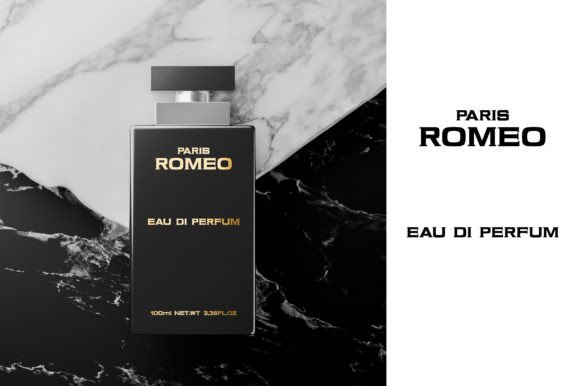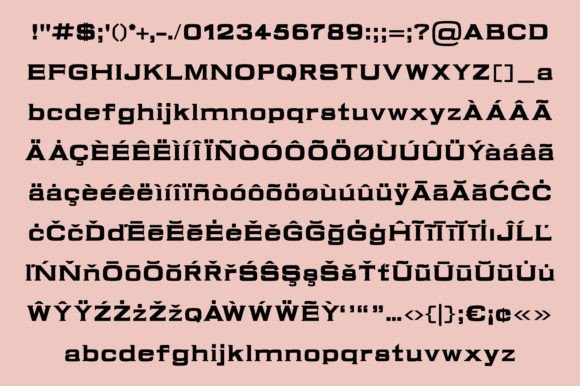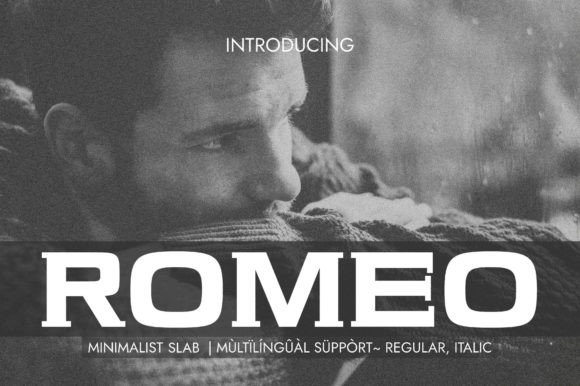
Romeo
Romeo: A Bold and Minimalist Slab Serif Font
Romeo is a bold yet minimalist slab serif typeface. This incredibly versatile font adapts well to a wide range of creative projects.
Key Features of Romeo
• Bold Design: Offers strong, impactful letterforms.
• Minimalist Style: Features clean, simplified elements.
• Versatile Character: Adapts well to various applications.
• Balanced Appeal: Combines boldness with simplicity.
Best Uses for Romeo
Thanks to its versatile characteristics, Romeo works especially well for:
When using Romeo in your designs, keep these tips in mind:
• Try it for headlines or display text to showcase its bold minimalism.
• Use different sizes to highlight its versatile features.
• Let its clean style enhance modern layouts.
• Take advantage of its adaptability across projects.
To sum up, Romeo is an excellent choice for designers seeking a bold yet minimalist slab serif font. Its versatility makes it perfect for various creative projects. Whether you’re creating modern branding, designing editorial content, or developing marketing materials, Romeo offers the perfect blend of boldness and simplicity.
Furthermore, Romeo’s distinctive design allows it to shine in contexts where both impact and minimalism are key. For instance, from clean typography to creative projects, this font can elevate your work with its balanced style. Also, its bold yet minimalist appearance works particularly well in designs that aim to make a strong yet refined impact.
In conclusion, Romeo truly captures the essence of bold minimalism in slab serif typography. Its versatility across different applications shows how well it can serve various creative needs. Therefore, for those wanting to add a touch of bold simplicity to their work, Romeo can enhance any design with its unique style. Ultimately, it’s perfect for designers aiming to make a strong, clean impact across a wide range of projects.